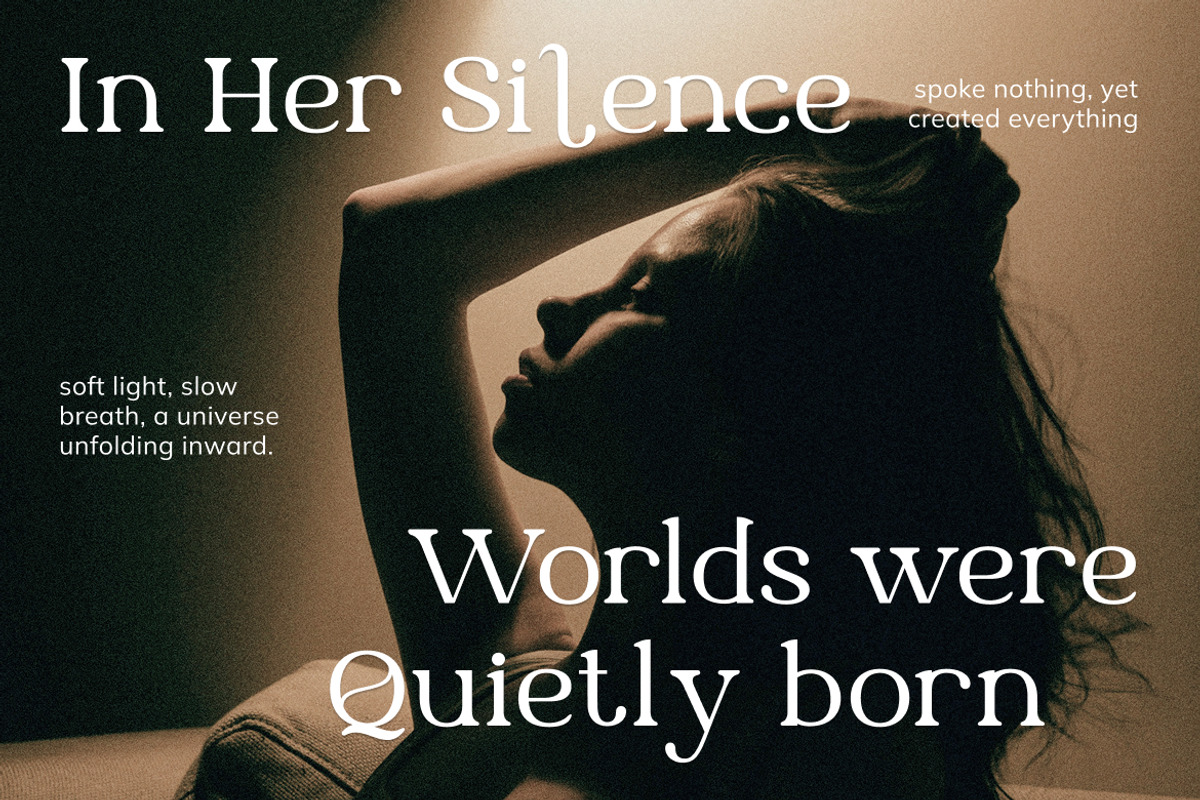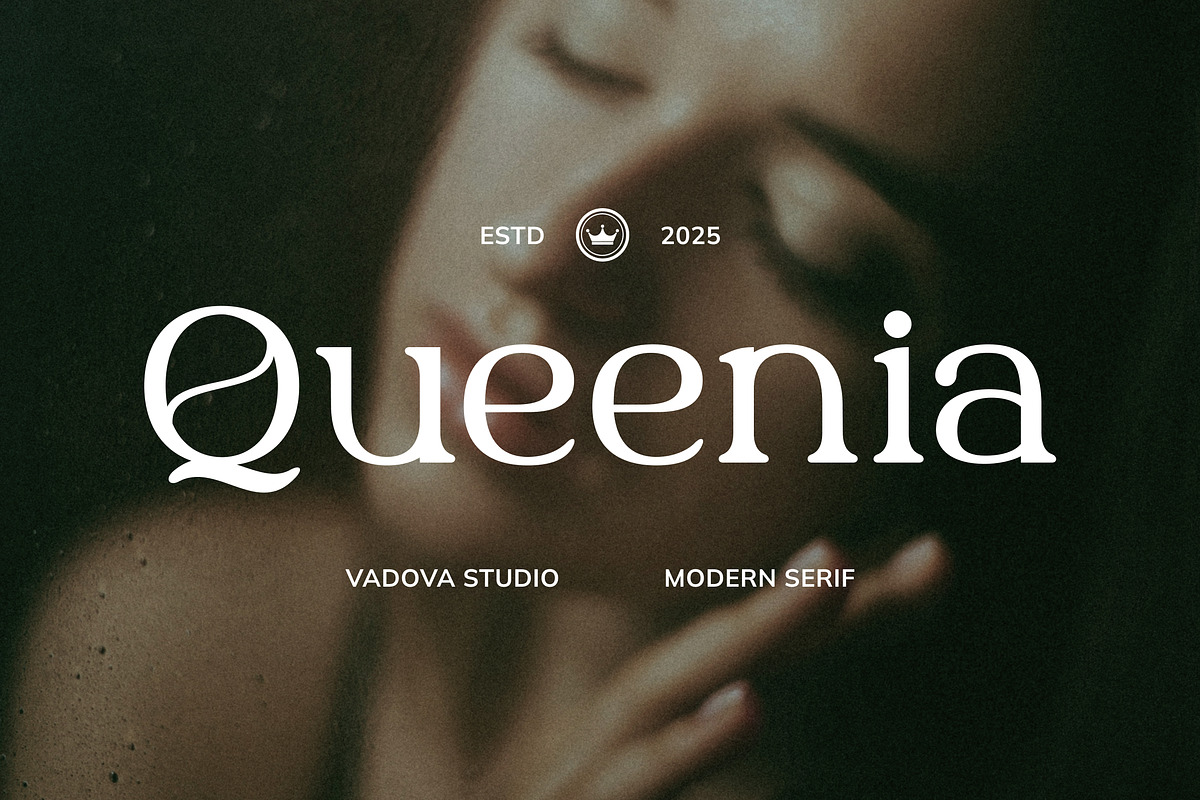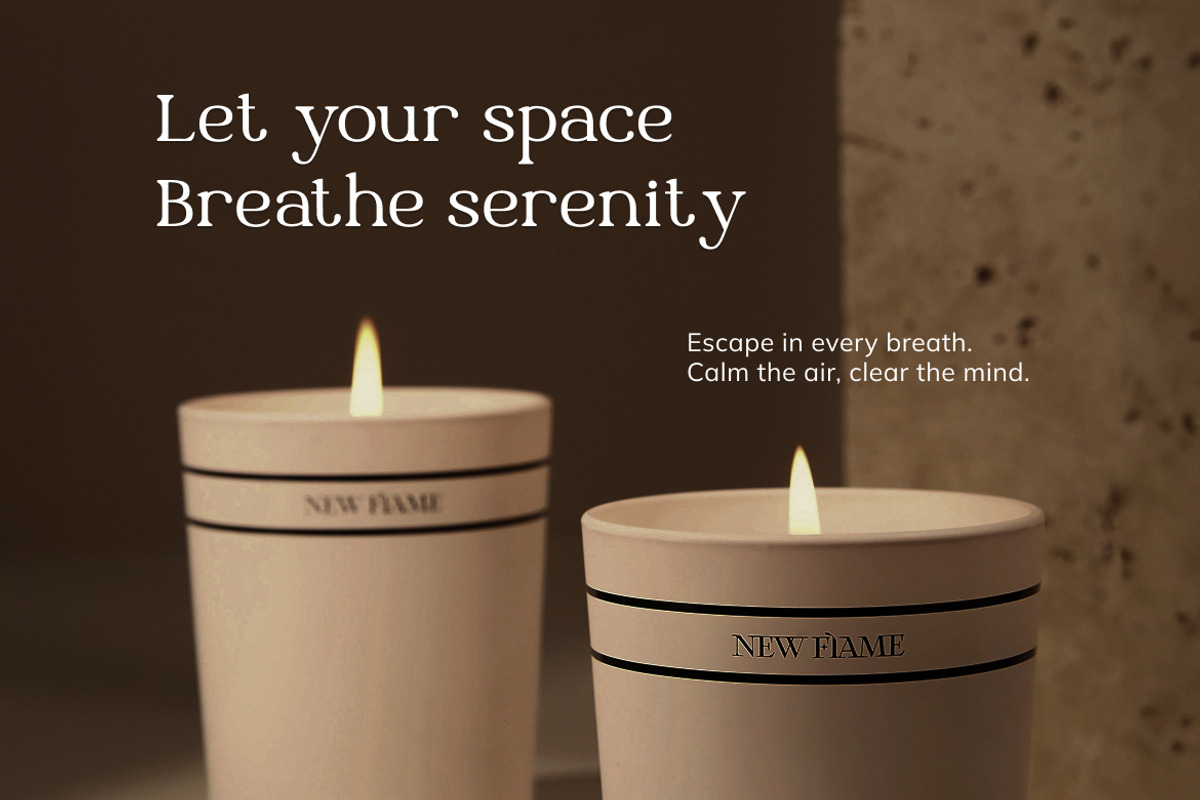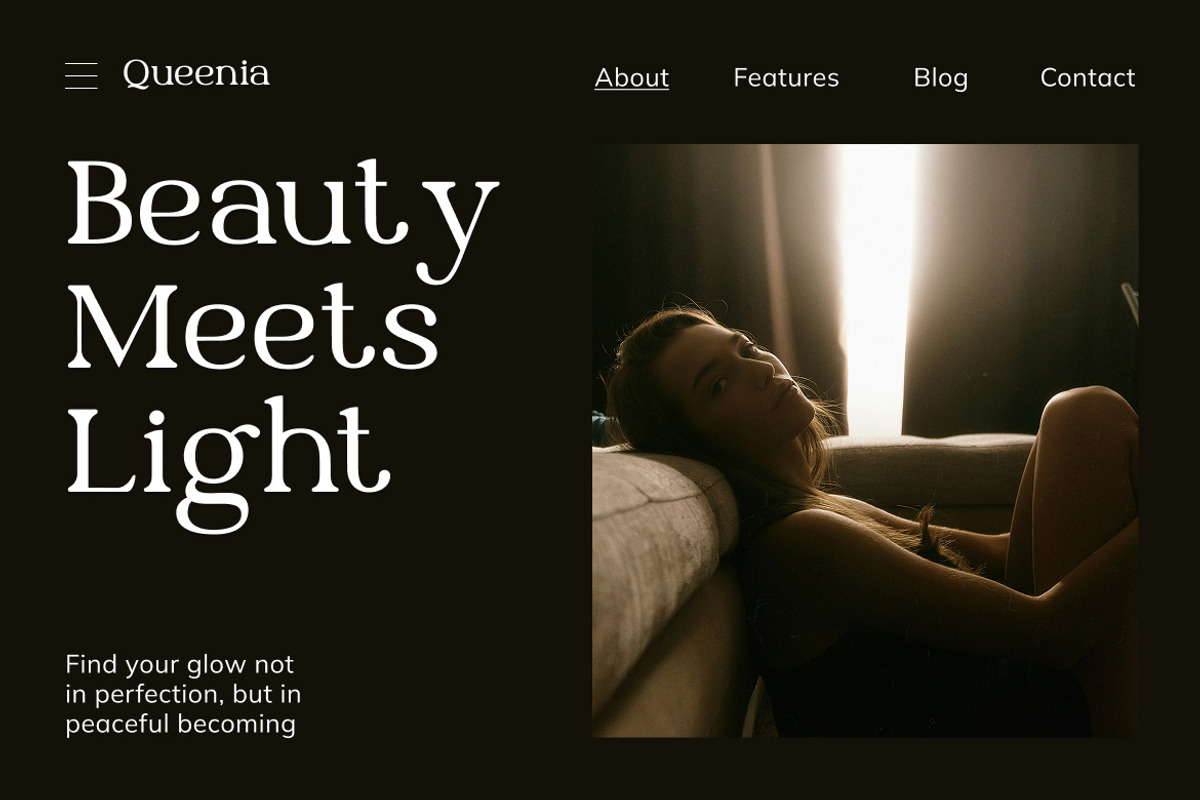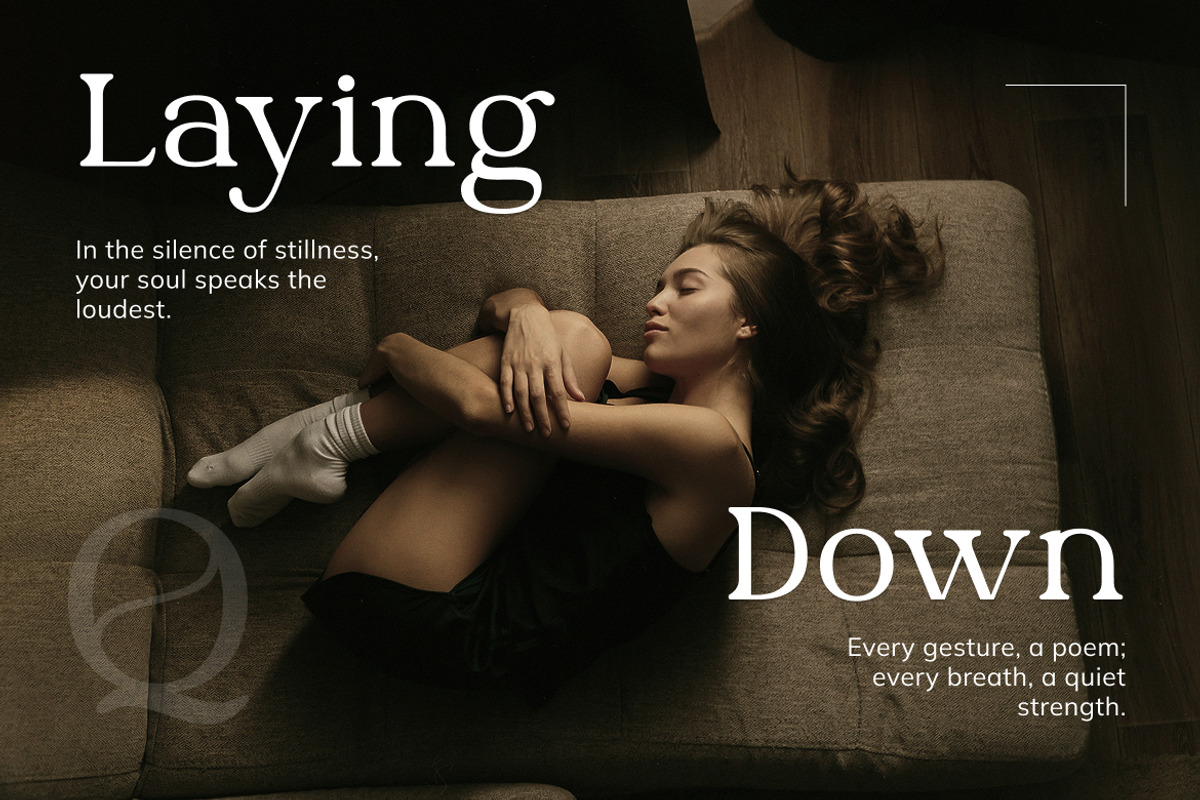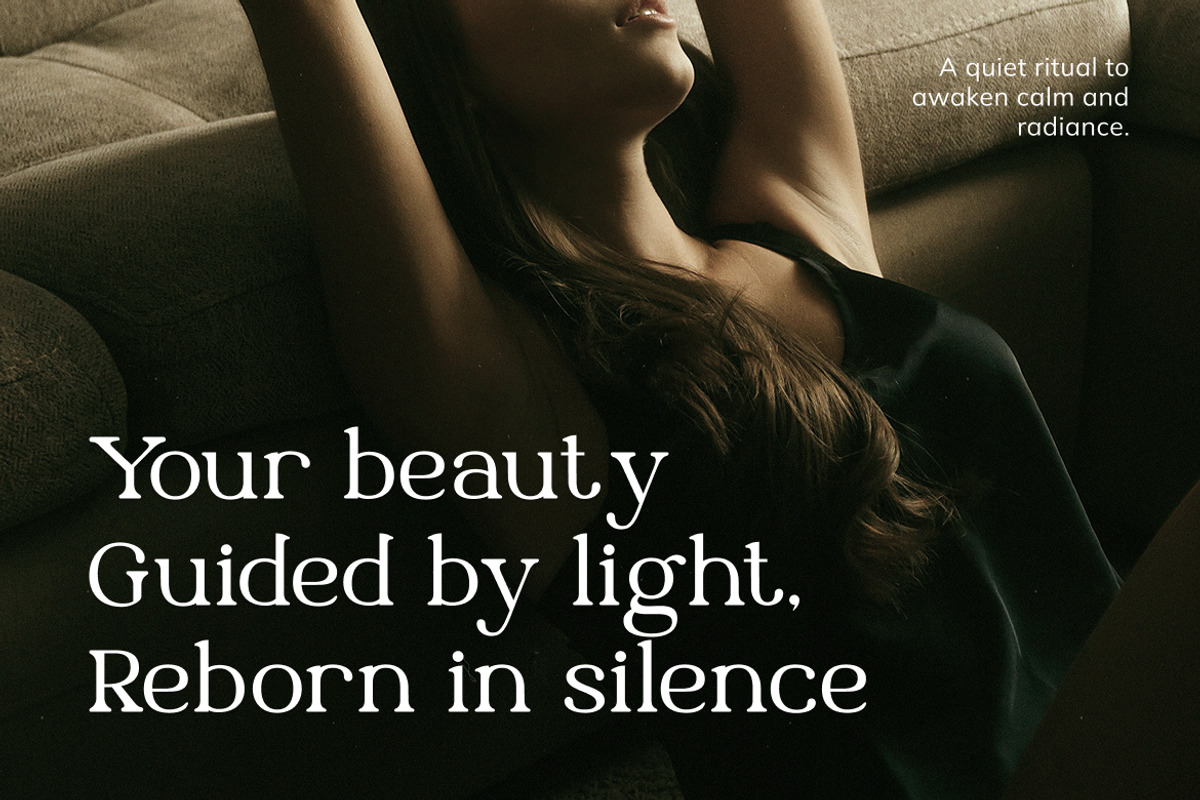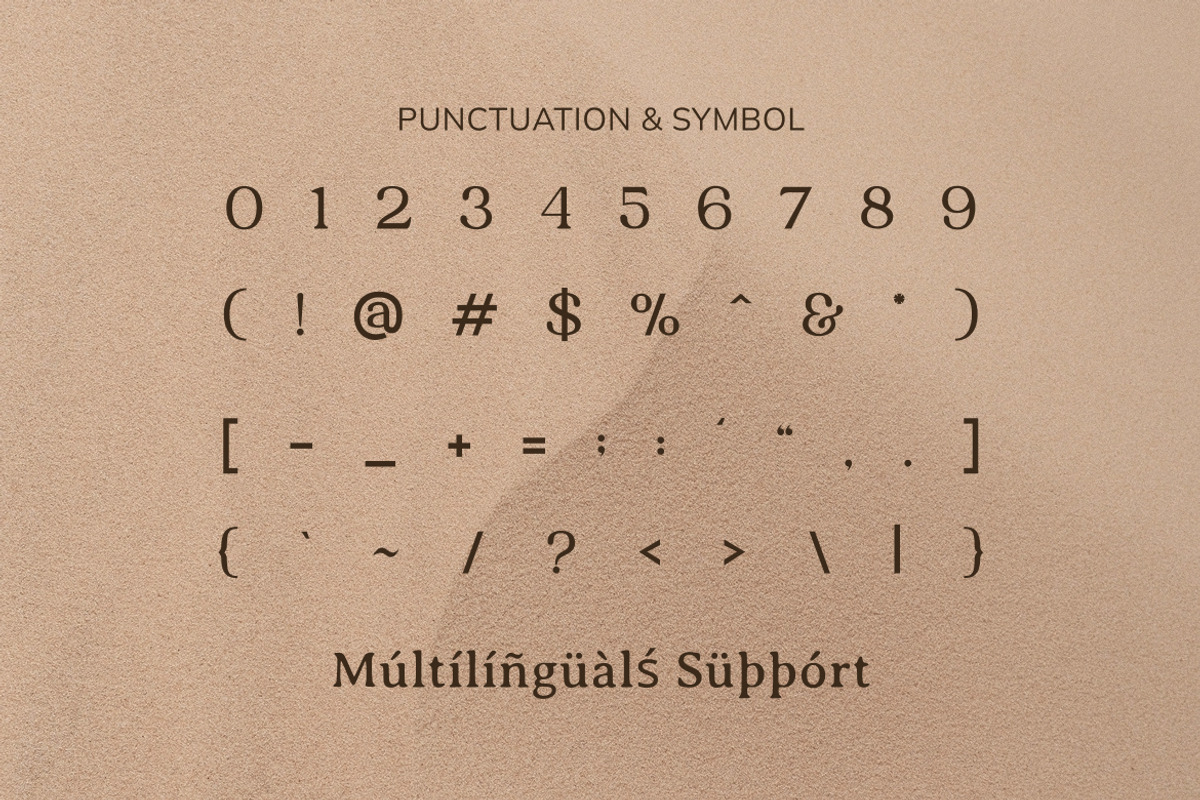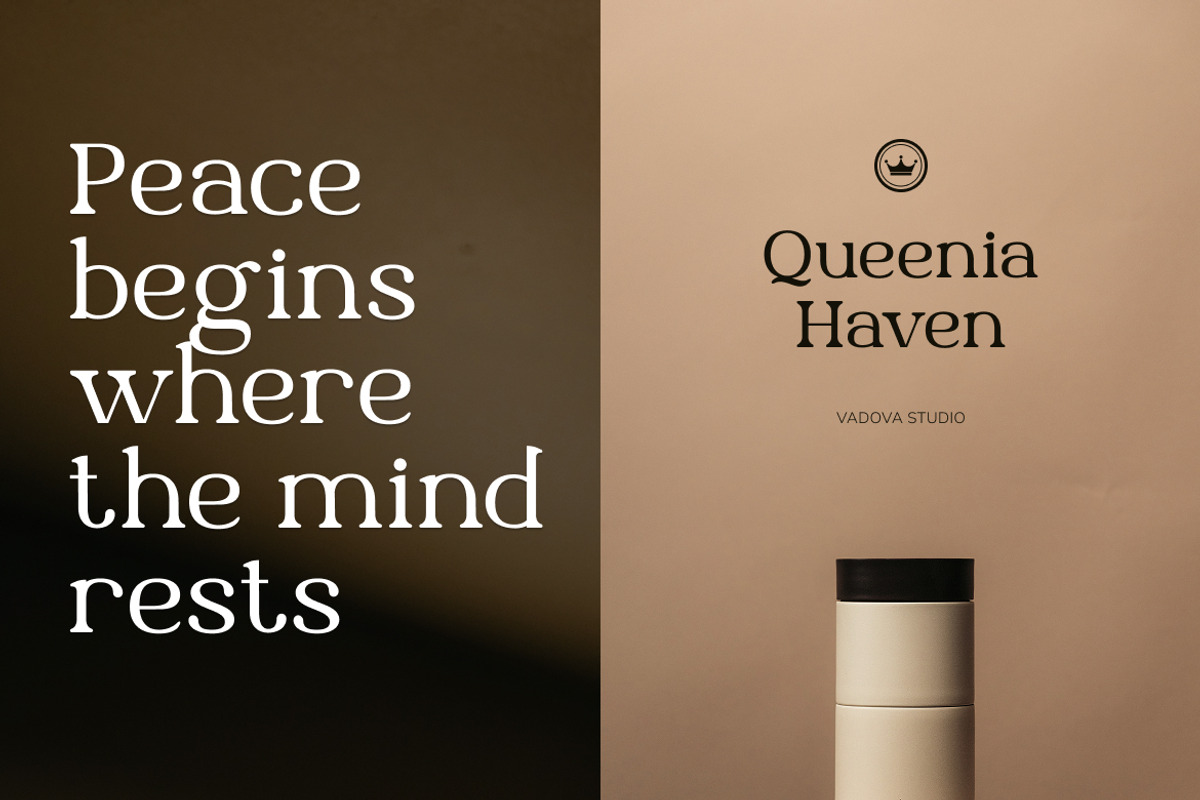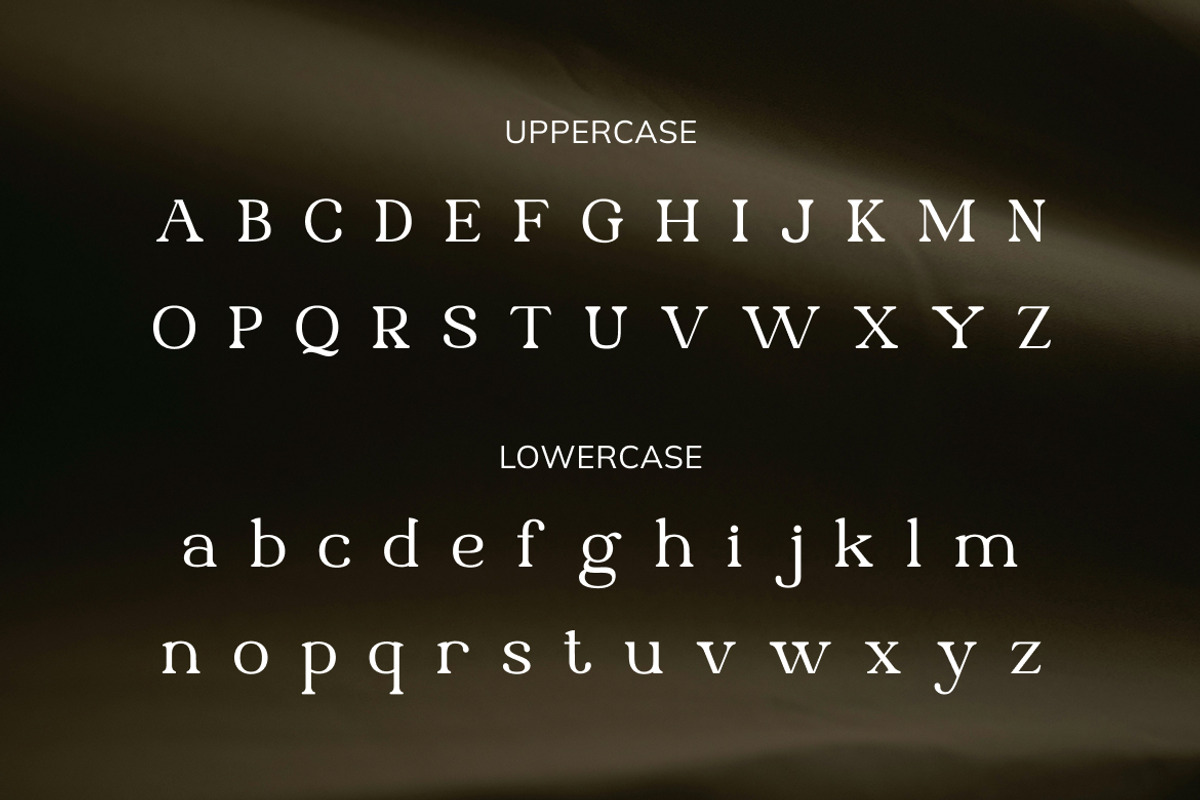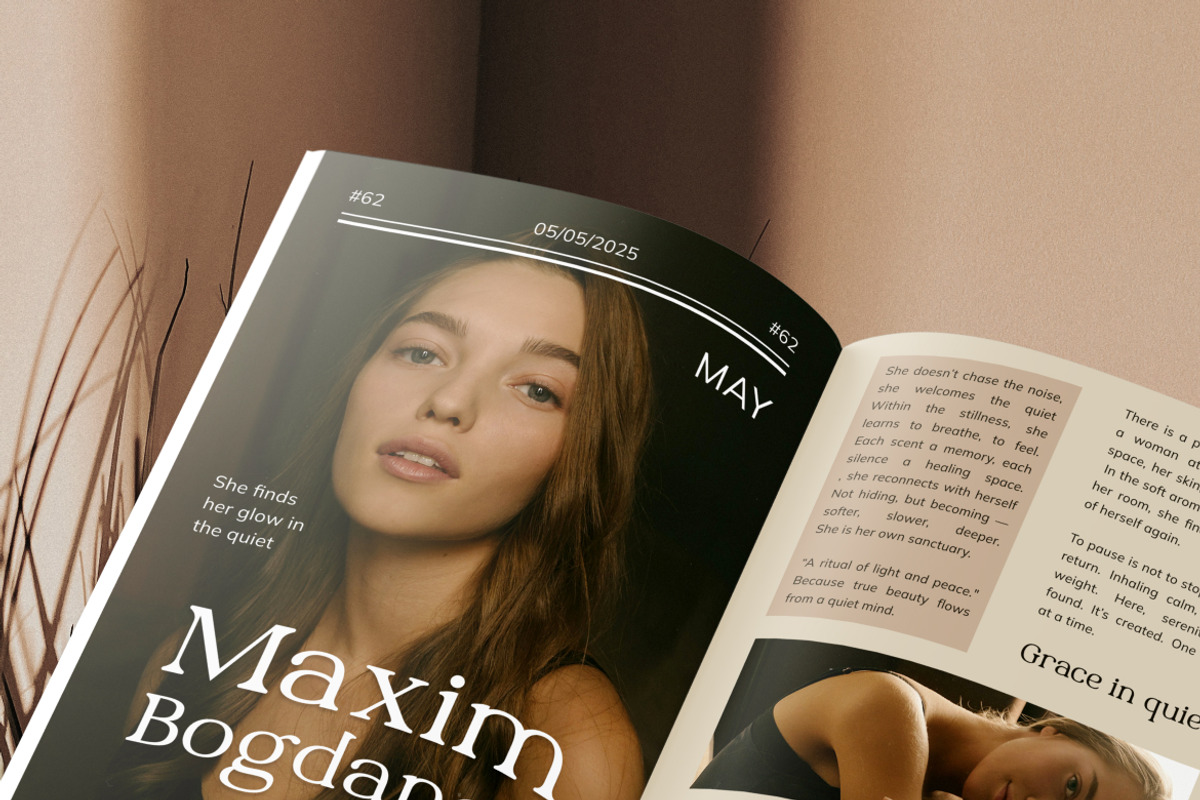
Queenia Elegant Modern Serif
Queenia is an elegant modern serif typeface that blends timeless sophistication with contemporary aesthetics. With high-contrast strokes, graceful curves, and refined details, Queenia evokes luxury and confidence in every letter. Designed to bring editorial charm and feminine strength, this font offers the perfect balance between modern minimalism and classic beauty.
Each curve and serif has been crafted to convey refinement and personality — ideal for high-end branding, fashion magazines, beauty packaging, or timeless logos. Queenia delivers a harmonious typographic voice that feels poised, confident, and elegant across both print and digital formats.
- Elegant modern serif with smooth contrast and sculpted curvature
- Inspired by luxury branding, editorial design, and timeless beauty
- Refined letterforms with both classic and contemporary flair
- Includes uppercase, lowercase, numerals, punctuation, and multilingual support
- Perfect balance of readability and sophistication for versatile use
- Works beautifully for editorial layouts, magazine titles, and high-end product logos
- Ideal for branding in fashion, beauty, and lifestyle industries
- Designed with luxurious detail for professional typography settings
- Balanced proportions ensure elegant performance on all media
Relevance and Use Cases is perfect for fashion branding, editorial layouts, beauty packaging, luxury logos, wedding invitations, magazine titles, photography portfolios, and high-end product design.